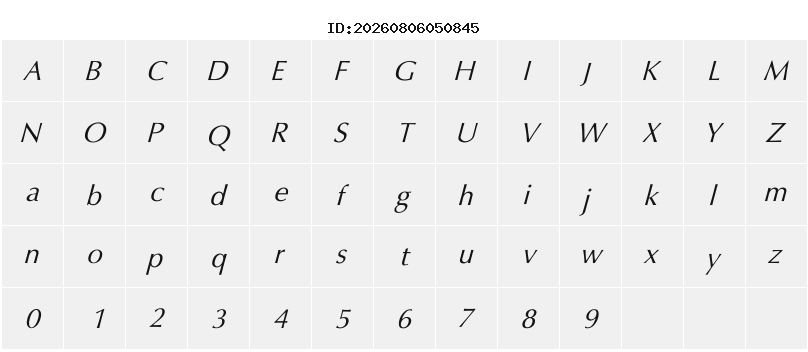
Oxford Italic Preview
About Oxford Italic.ttf
Oxford Italic.ttf is a modern, elegant sans-serif font designed for ultimate readability and visual harmony. Perfect for branding, headlines, web design, and print materials.